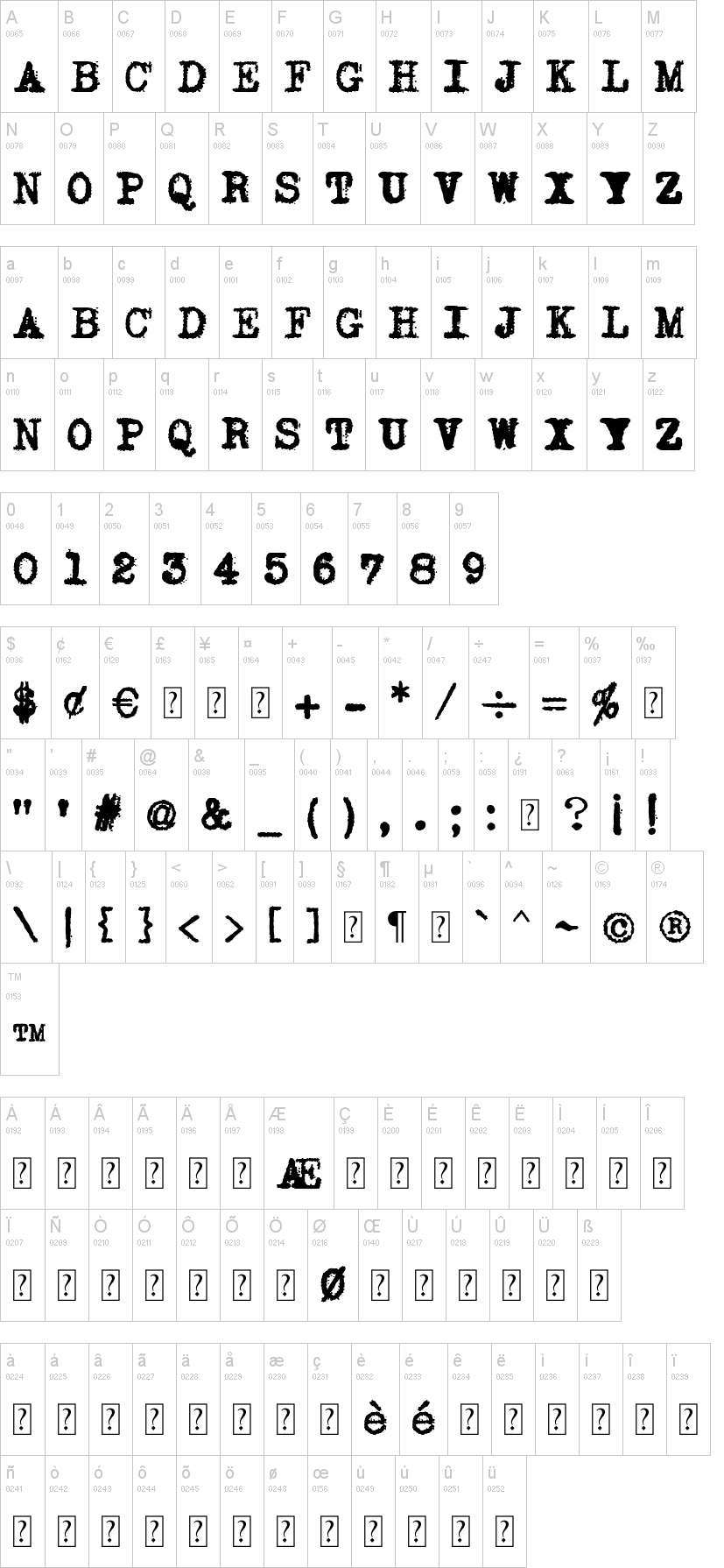
Note of the authorJoe Caps Underwood font is a typewriter font based off the old Underwood typewriters. This font set contains 100+ characters including trademark, copyright, and the euro symbol. This is the free version but it doesn't have lowercase letters. The lowercase version can be found here http://phelanriessen.com/font/joe-underwood-typewriter-font/